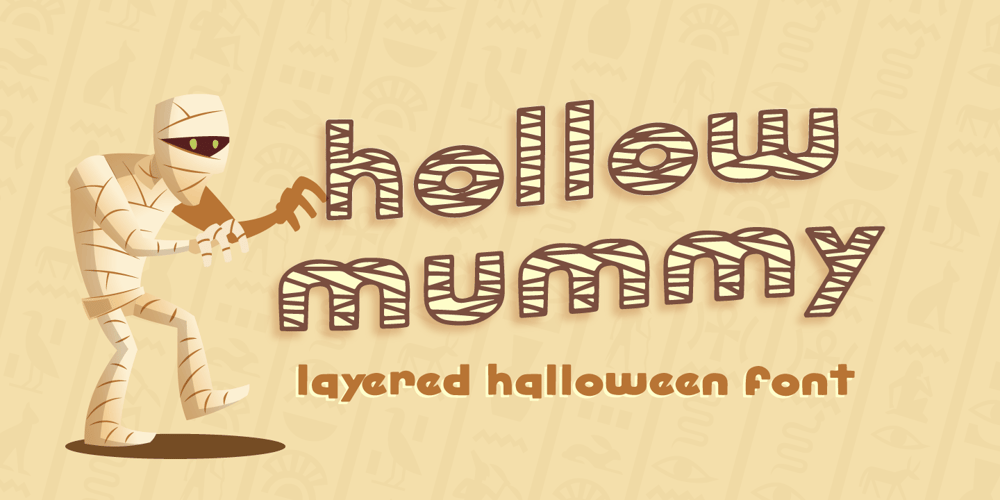
Hollow Mummy Font Family was designed by Fadli Ramadhan Iskandar and published by Attype Studio. Hollow Mummy contains 2 styles and family package options. Hollow Mummy is a bold and authentic display font. Add this font to your creative and spooky ideas and notice how it will make them stand out!Hollow Mummy is perfect for branding, logo, invitation, stationery, social media post, product packaging, merchandise, blog design, game titles, cute style design, Book/Cover Title and more.What’s Included :- hollow mummy (.otf)- hollow mummy display (.otf)- Multilingual Support (Afrikaans, Albanian, Catalan, Danish, Dutch, English, Estonian, Finnish, French, German, Icelandic, Italian, Norwegian, Portugese, Spanisch, Swedish, Zulu)